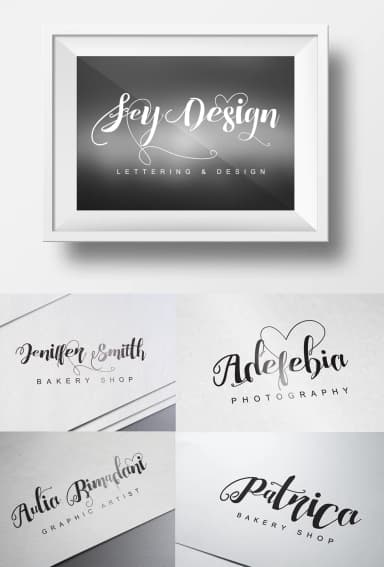
Chocolate Heart by feydesign is a romantic calligraphy script that brings flourishing elegance to love-focused creative projects. This flowing typeface is specifically crafted for designers working on heartfelt stationery, from wedding invitation suites to personalized Valentine's Day cards and anniversary announcements. The script's graceful, expressive letterforms work especially well for intimate applications like couple-focused gift packaging, romantic greeting cards, and sentimental engagement invitations that demand genuine emotional warmth and sophistication. The font includes extensive variations, multiple word versions, left and right swash options, and dedicated love-themed character sets, giving designers considerable flexibility to customize romantic messaging and personal touches without switching between multiple typefaces. These decorative swash alternates allow for layered visual sophistication in boutique jewelry branding, personalized handwritten-style love letters, and high-end custom stationery designs that particularly benefit from ornamental flourishes. The variety makes it equally effective for Valentine's merchandise lines, luxury wedding stationery collections, and branded packaging for romantic gift items or boutique product launches. Chocolate Heart shines for designers focused on genuine romantic expression and intimate occasions. Whether crafting custom stationery, developing romantic social media graphics, or creating personalized wedding materials, this calligraphic script provides both visual polish and emotional resonance. Bring refined romantic elegance to your next heartfelt project with Chocolate Heart from Creative Fabrica.
Chocolate Heart Font is a script font that shines as a display or heading face. Pair it with a clean sans-serif or serif font for body text β the contrast creates a clear hierarchy while the two styles stay balanced and easy to read.
Chocolate Heart Font
by feydesign